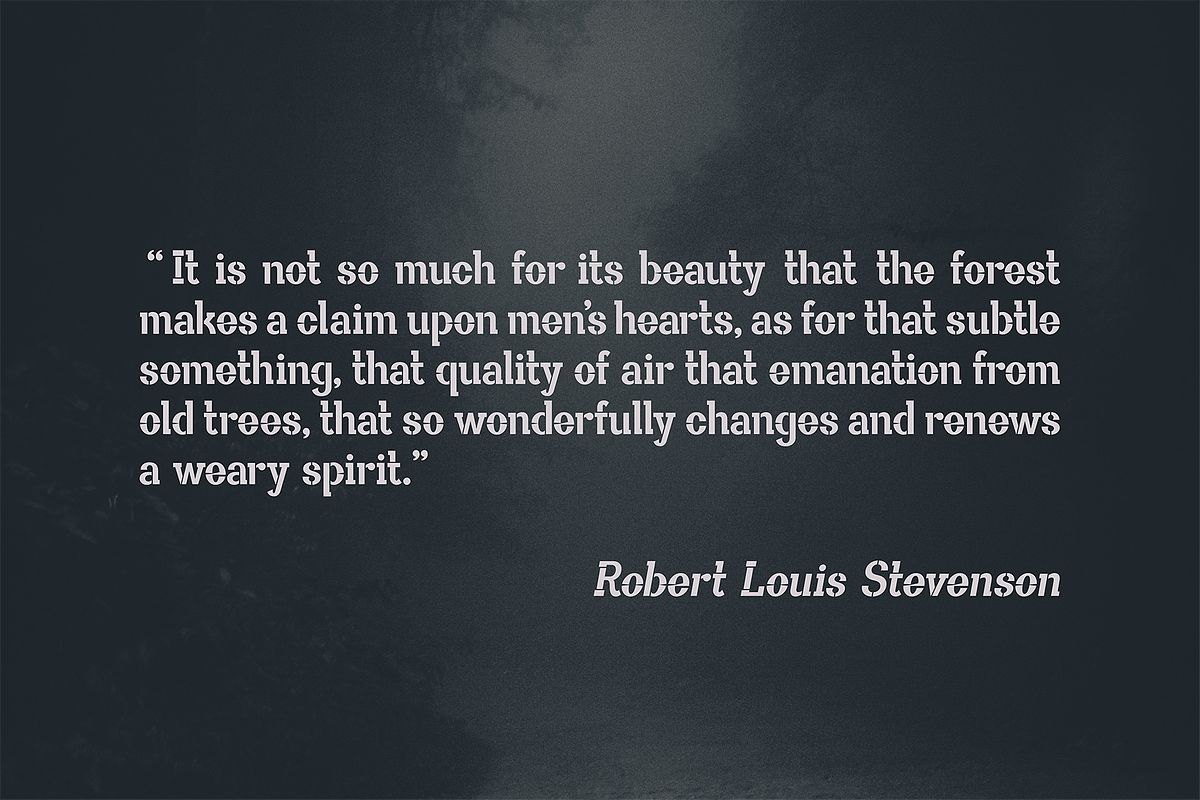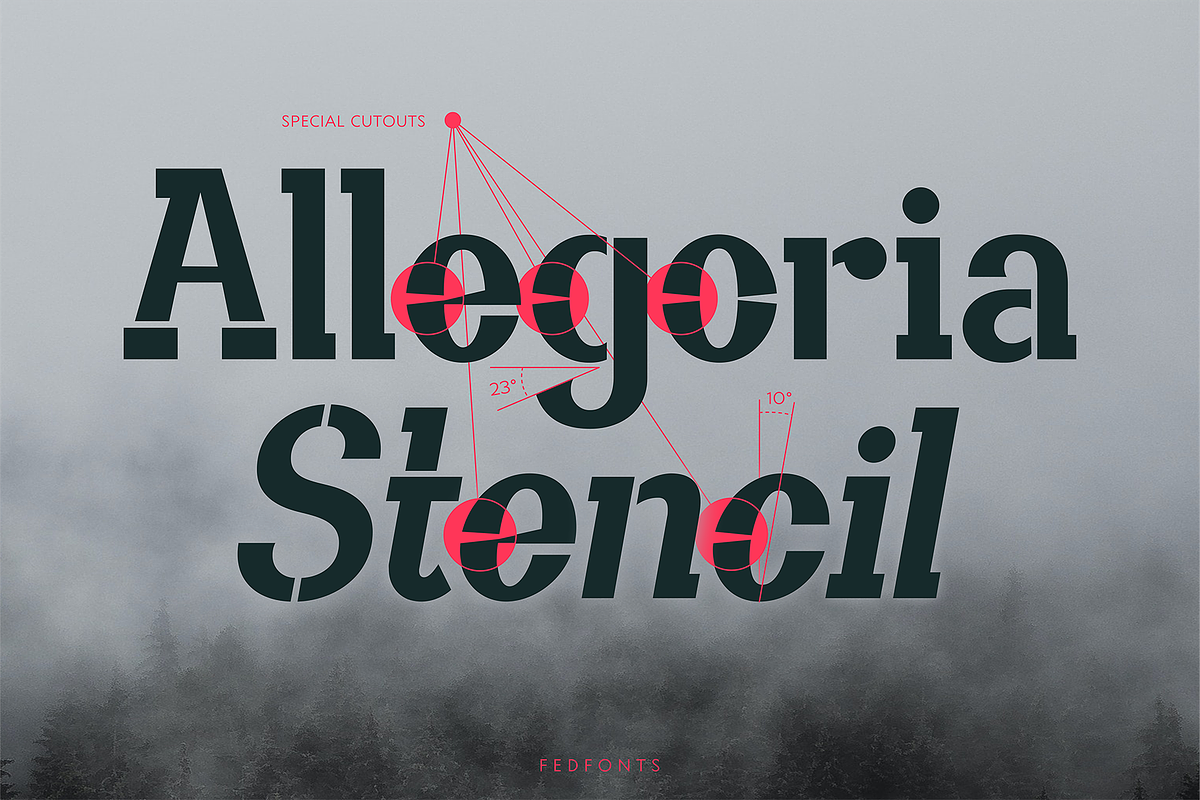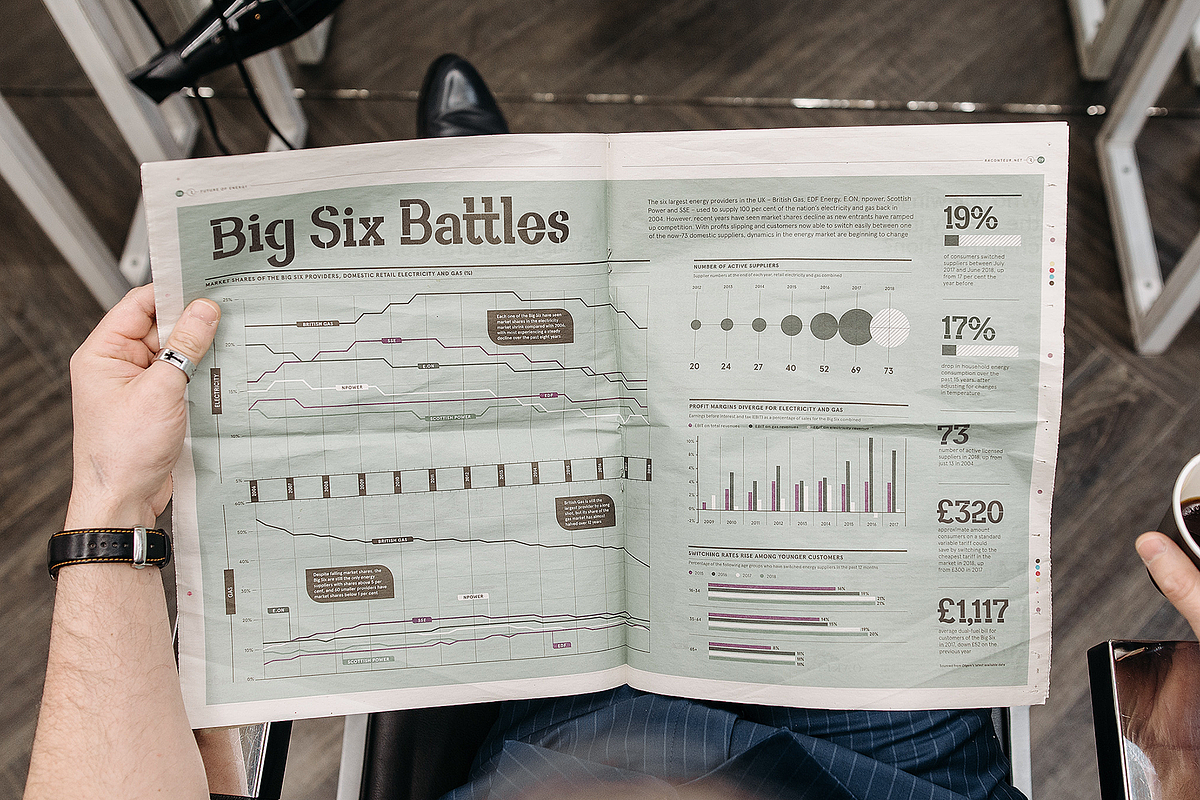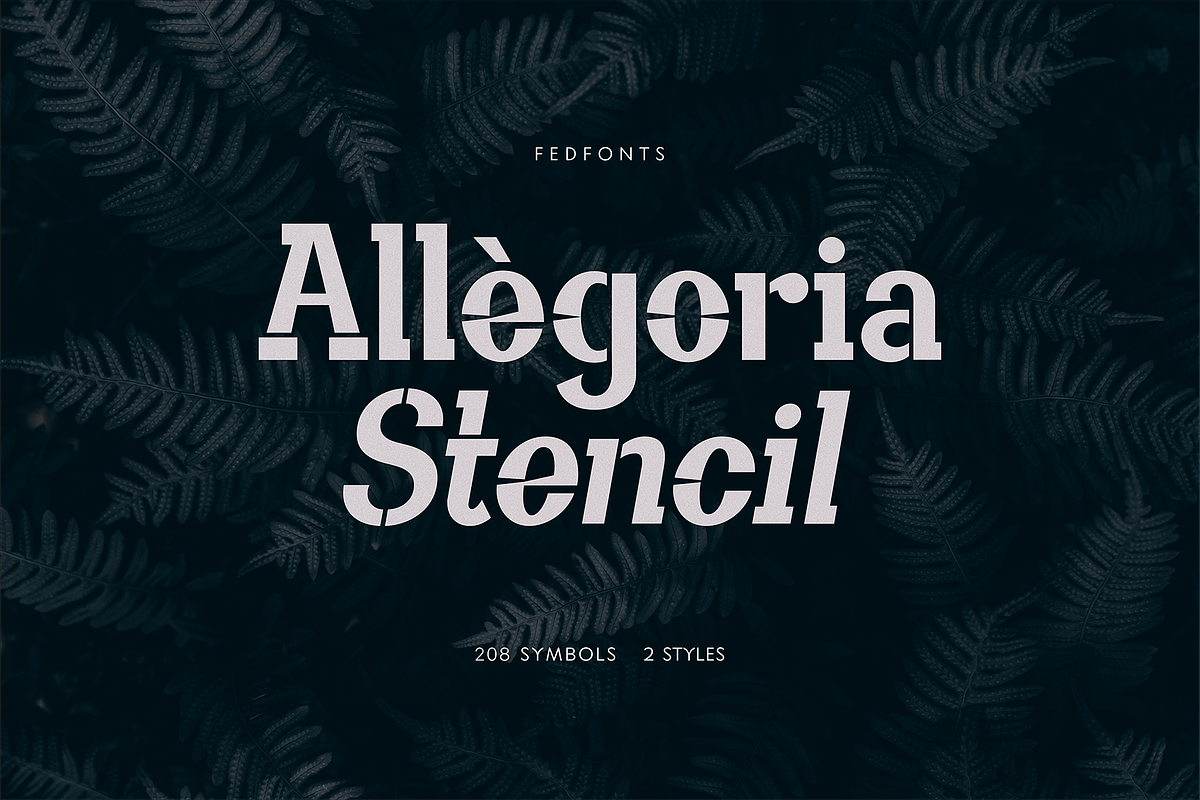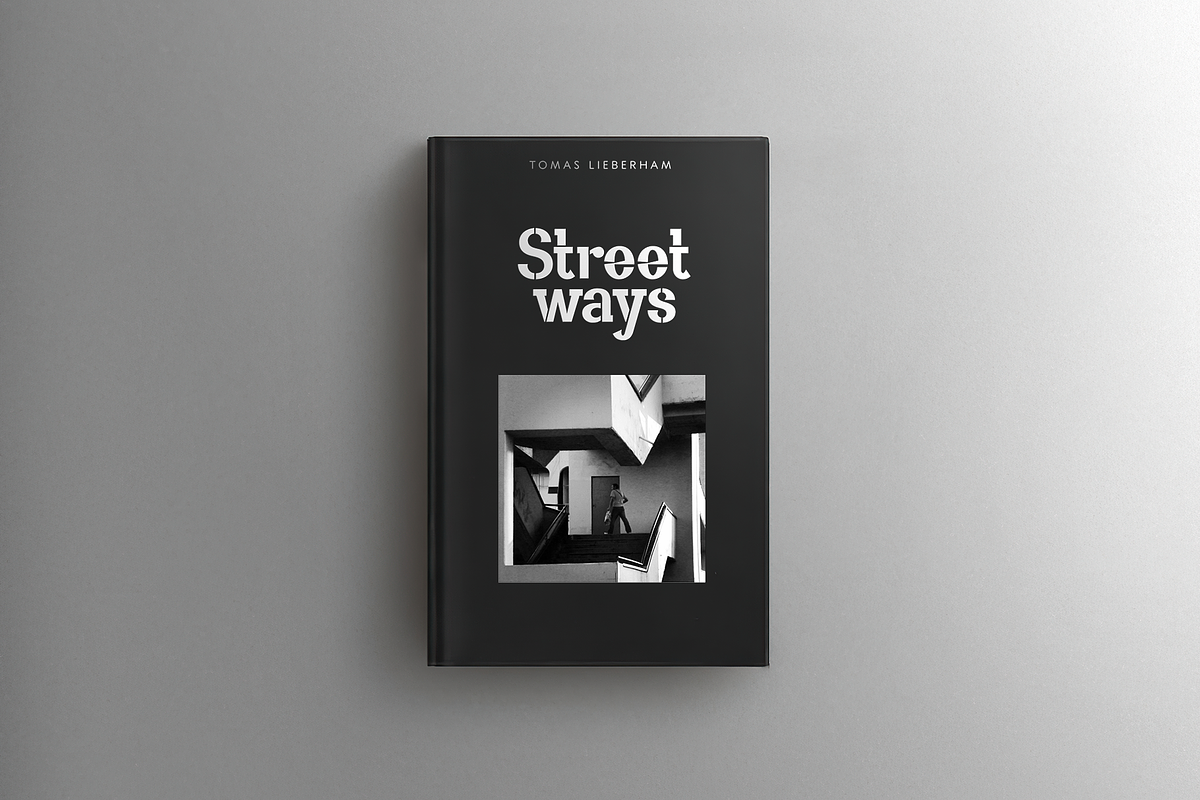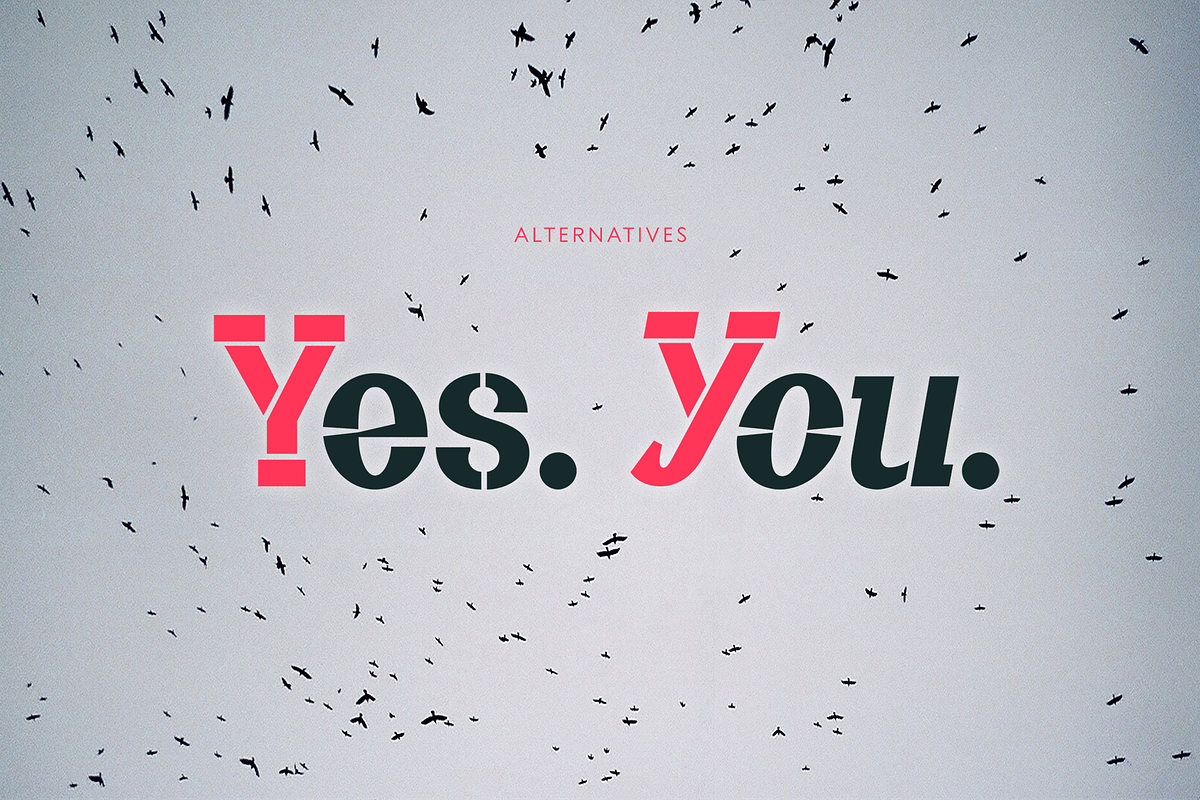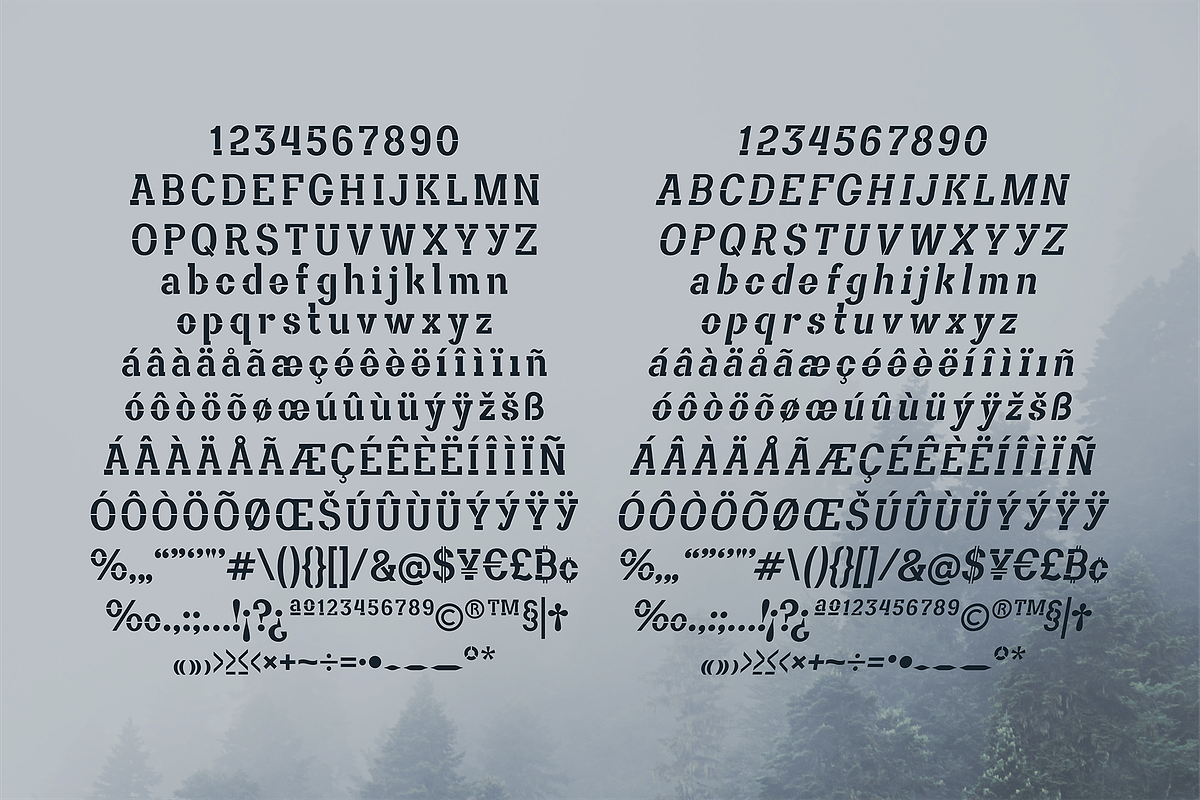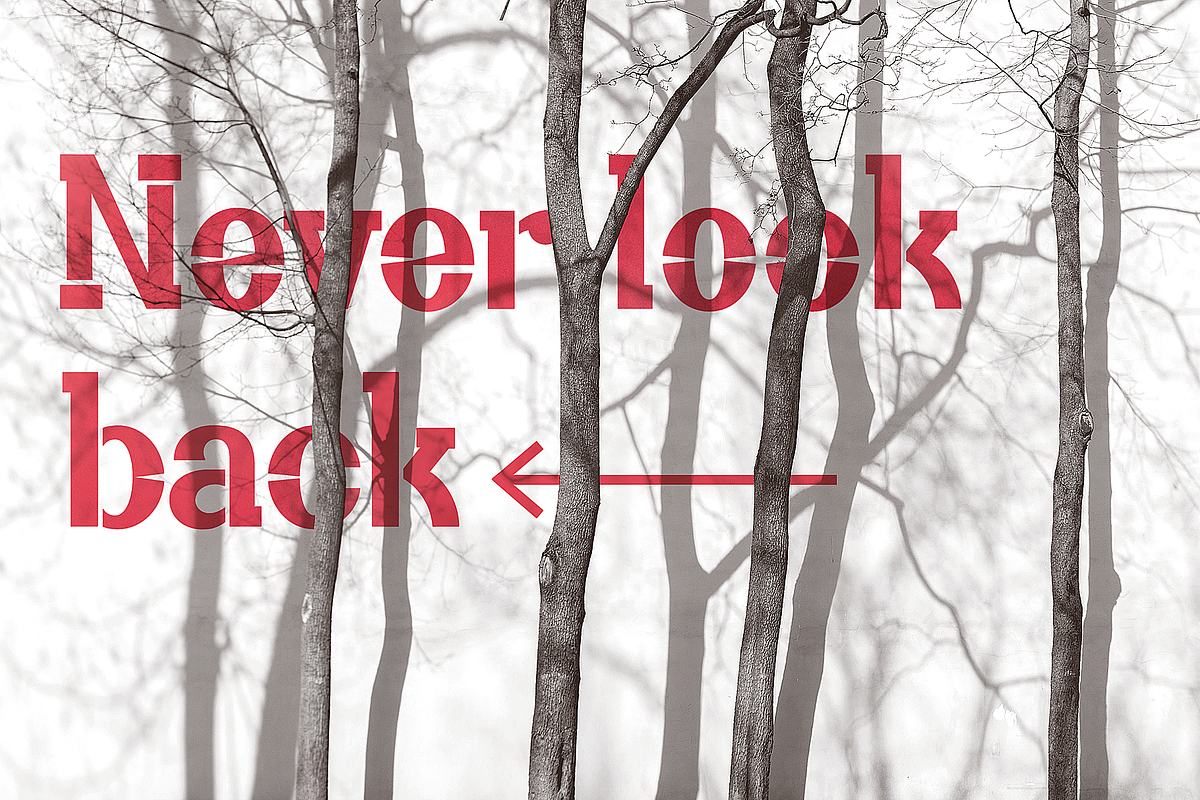
Allegoria Stencil
The font consists of two styles, includes more than 200 essential symbols that can satisfy any task. Suitable for banner designs, book covers, magazine headlines, website titles, and logo design. Thank you for your purchase!